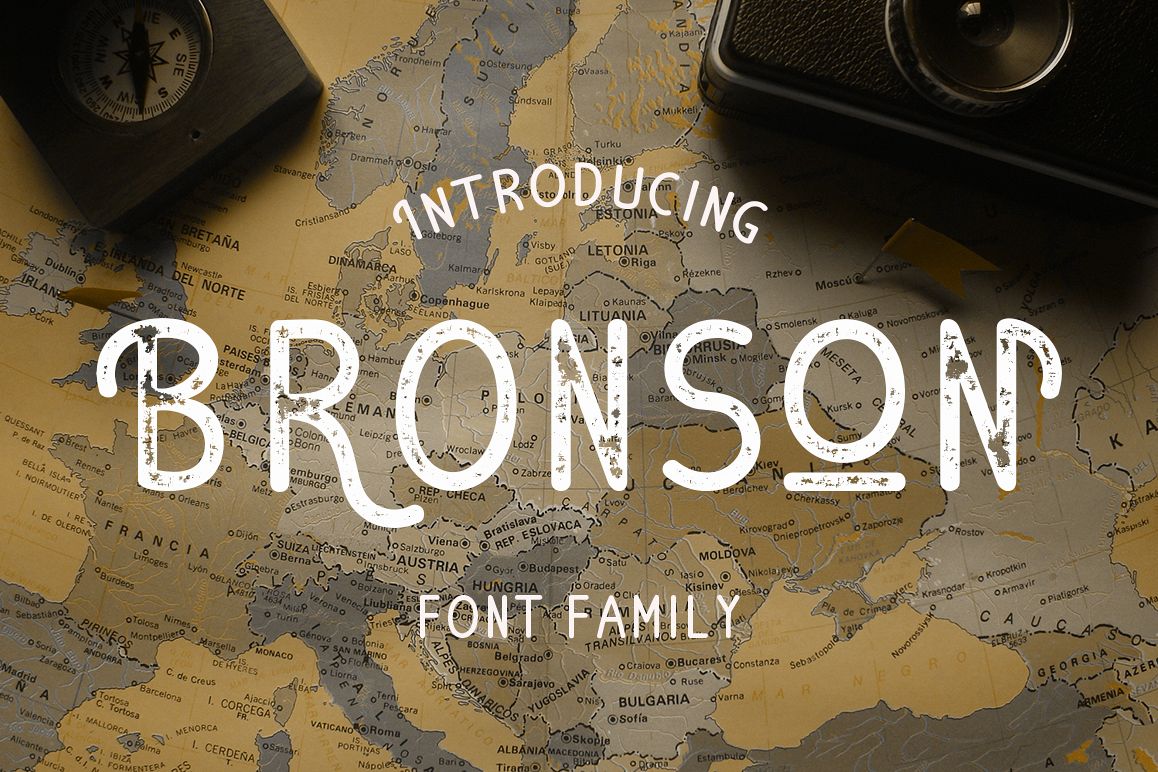
Bronson
Hello! I'm introducing my new font, BRONSON. This is a high quality generic font in four styles. Rounded corners give it a warm, friendly way about it. Bronson works extremely well for typing on curved paths (for badges, logos and type based design)